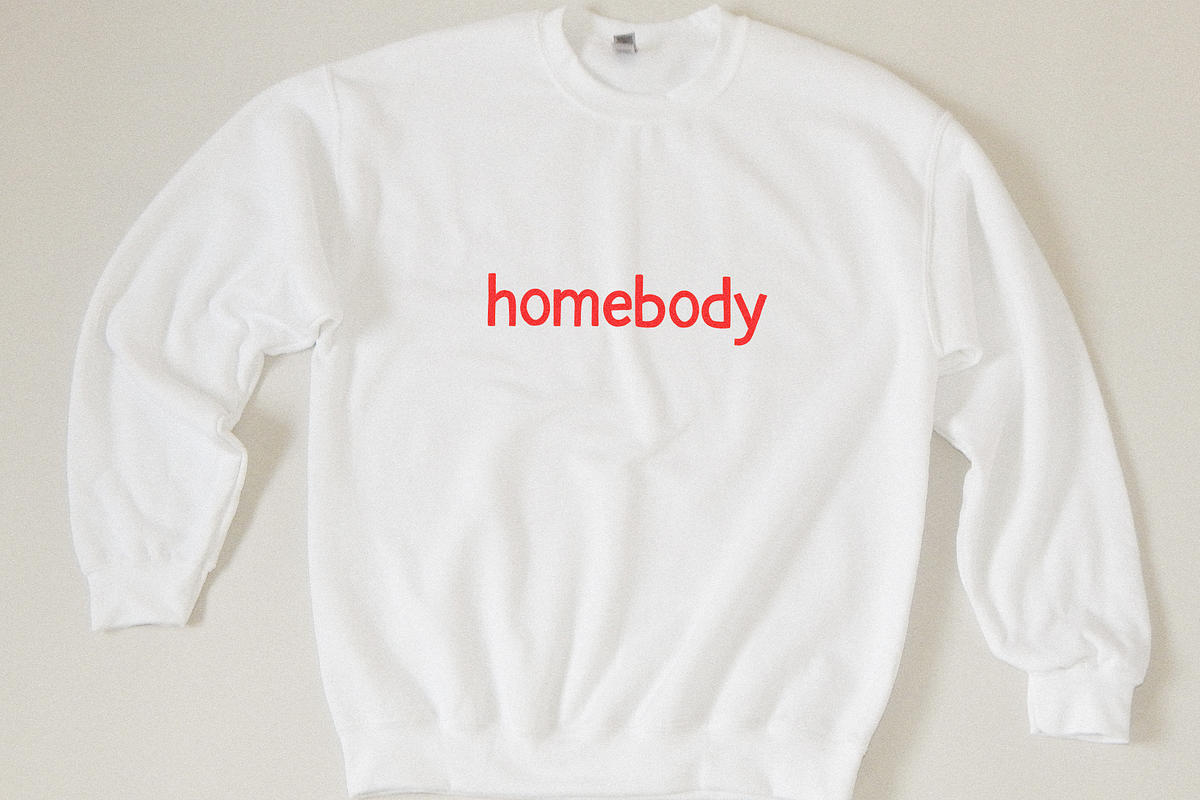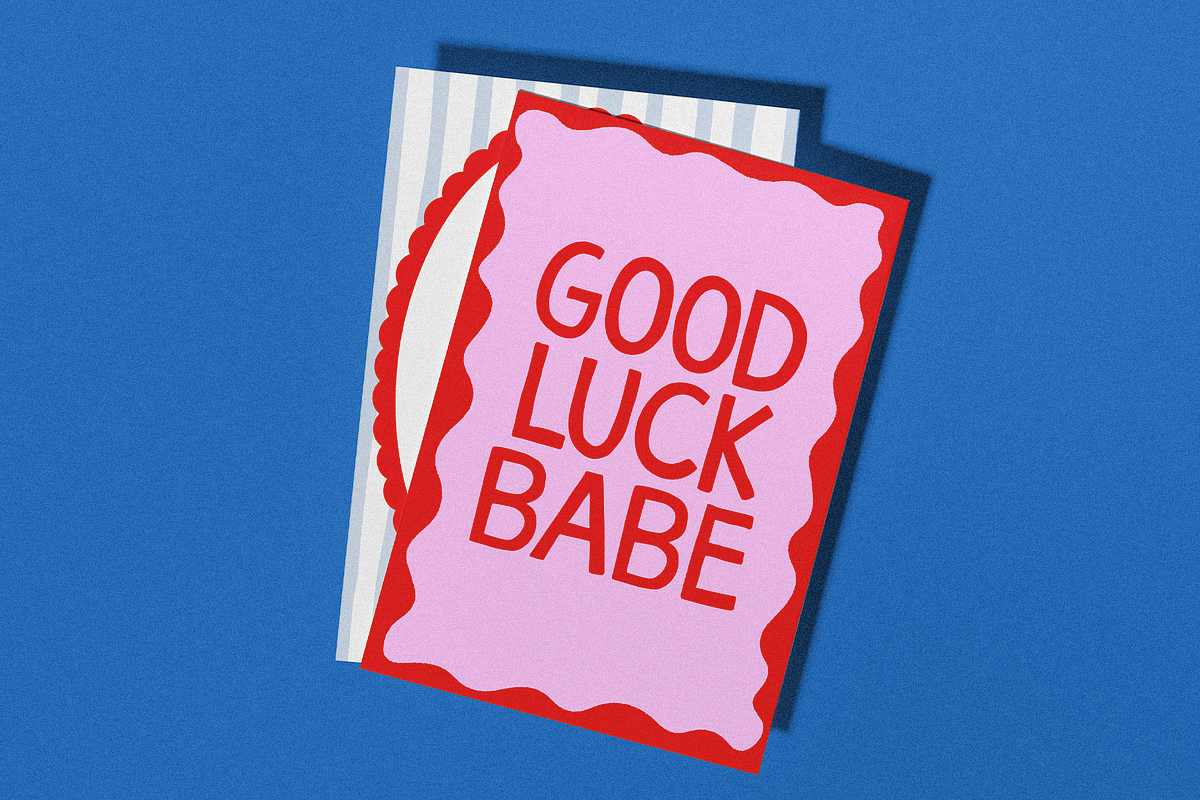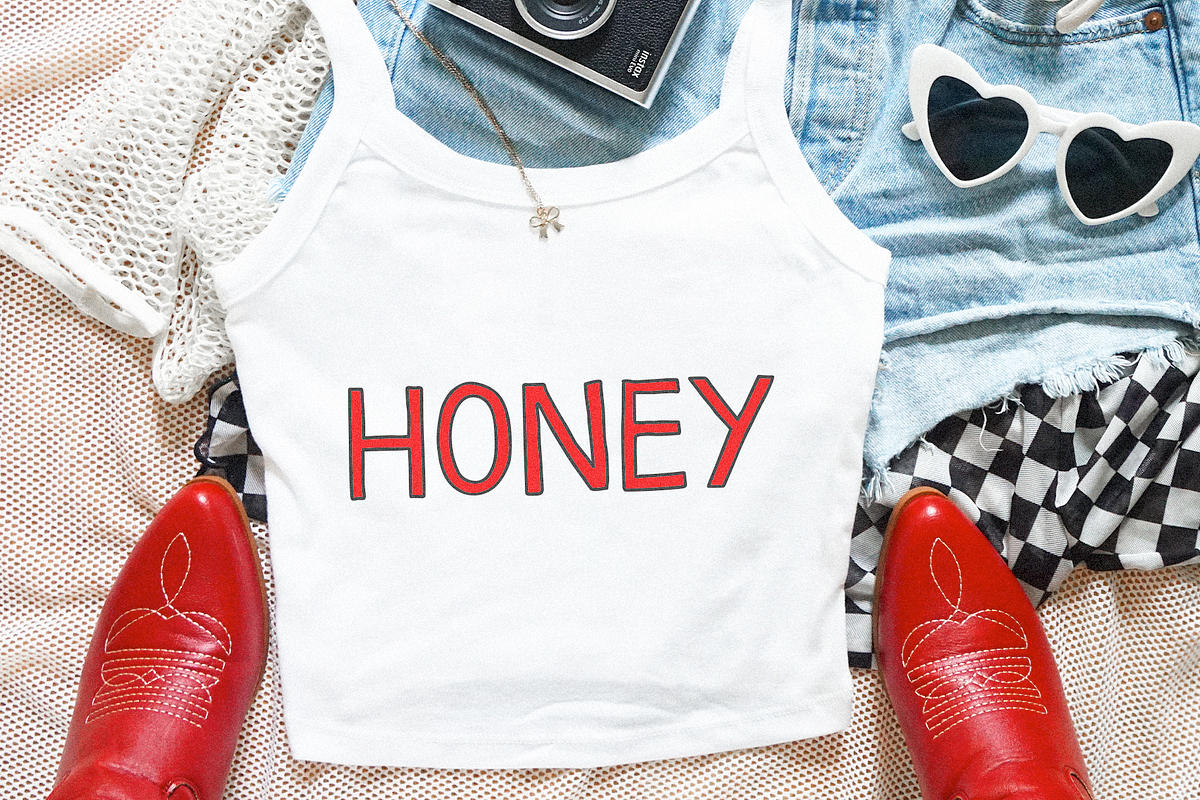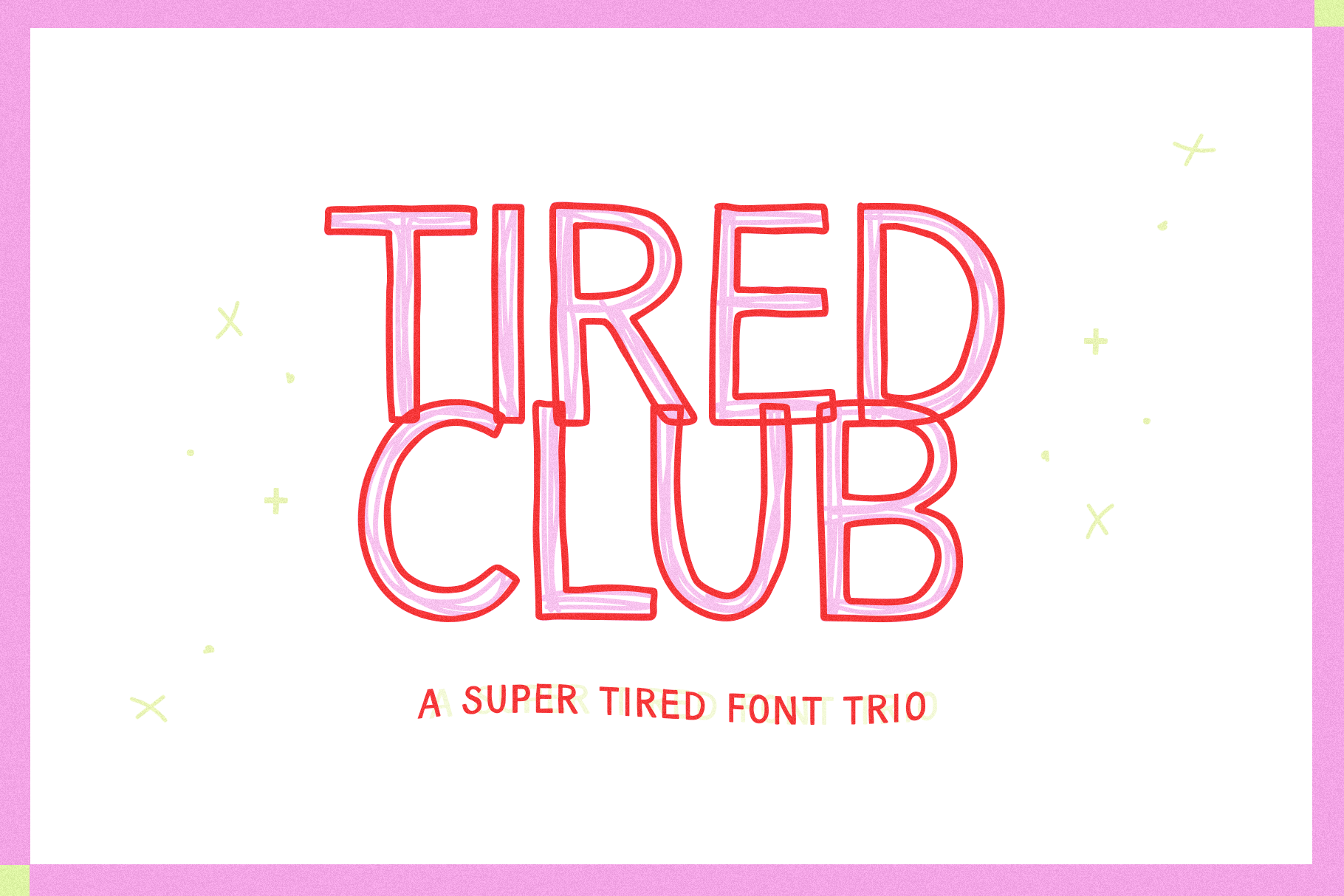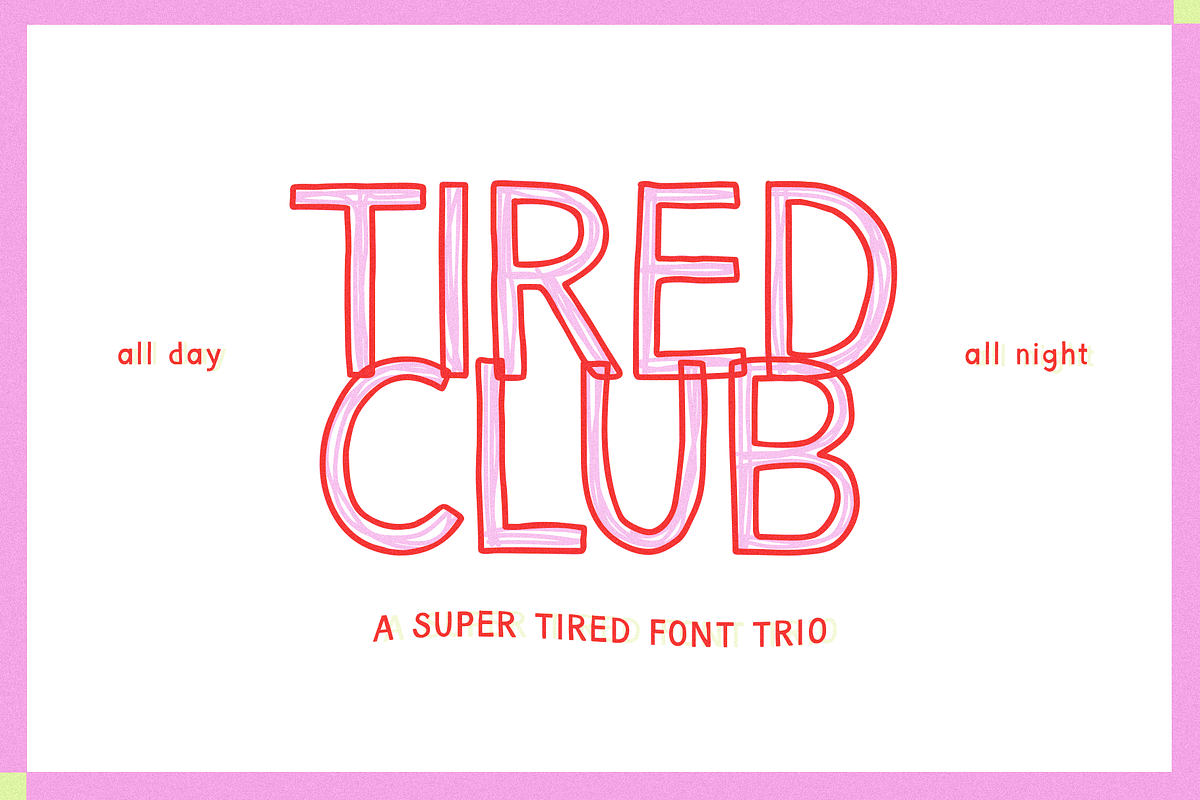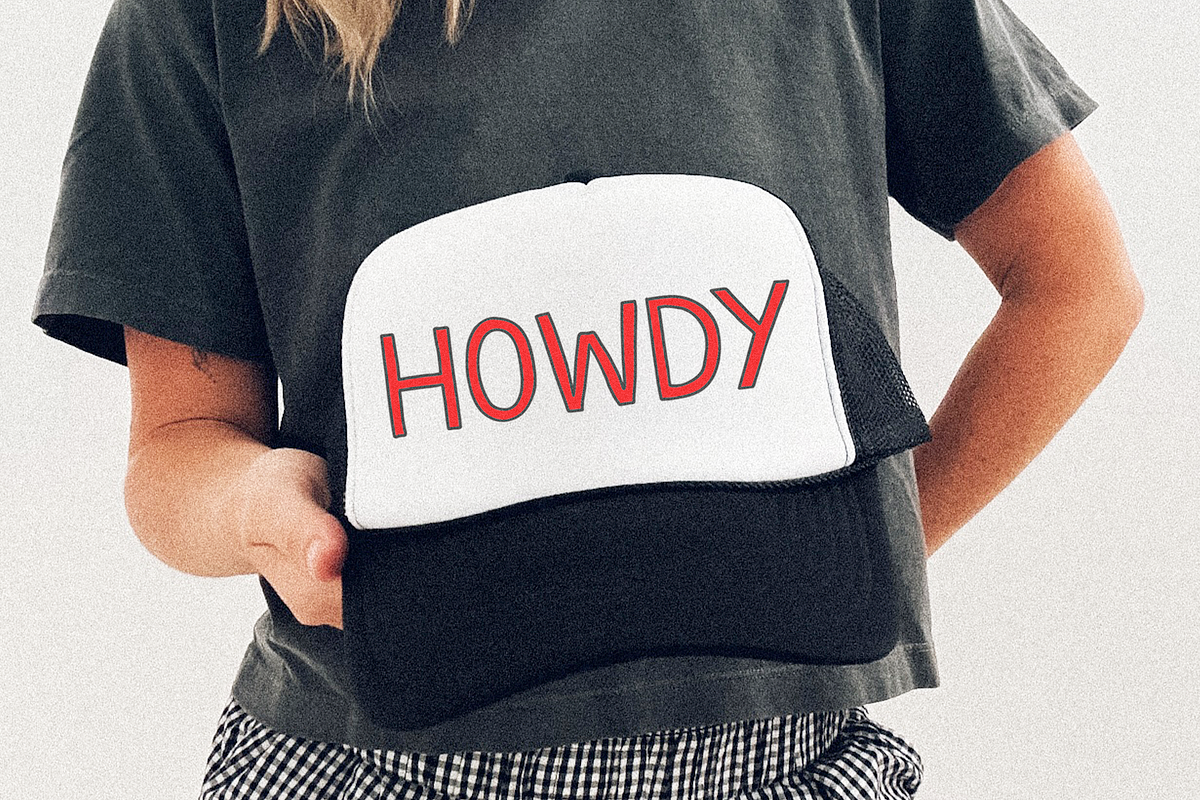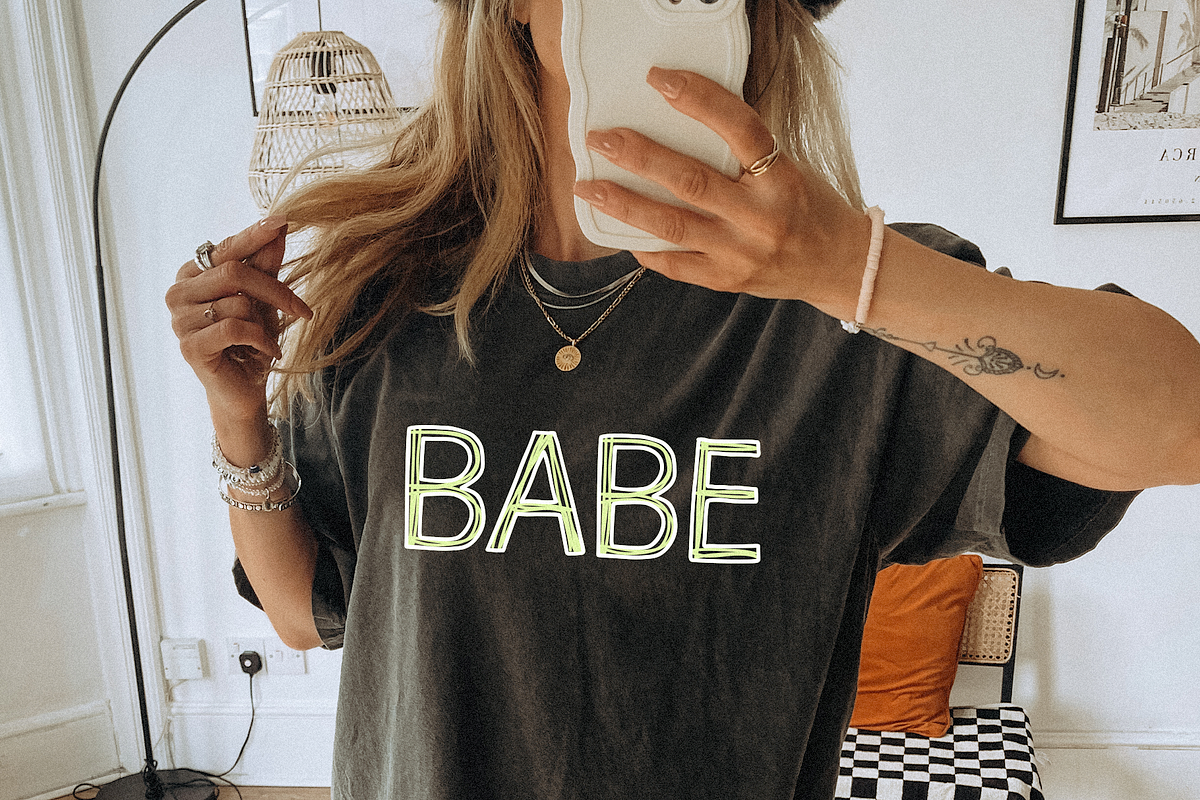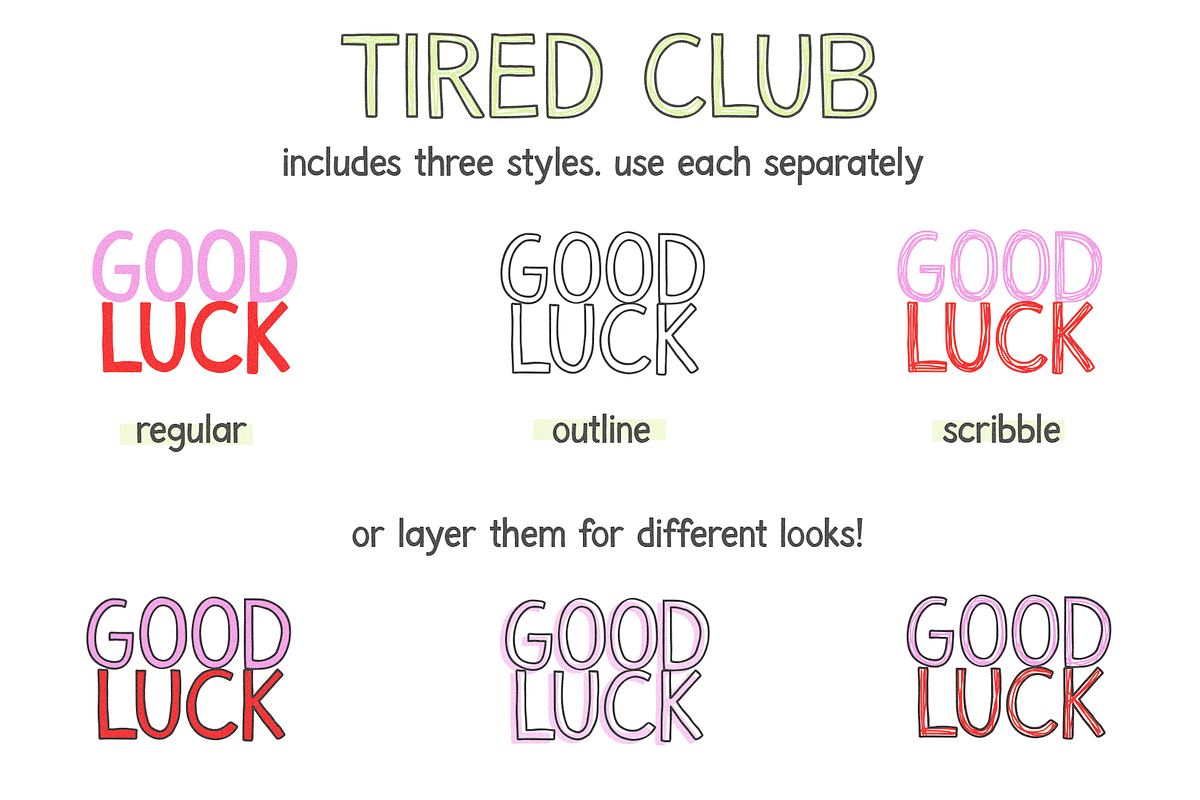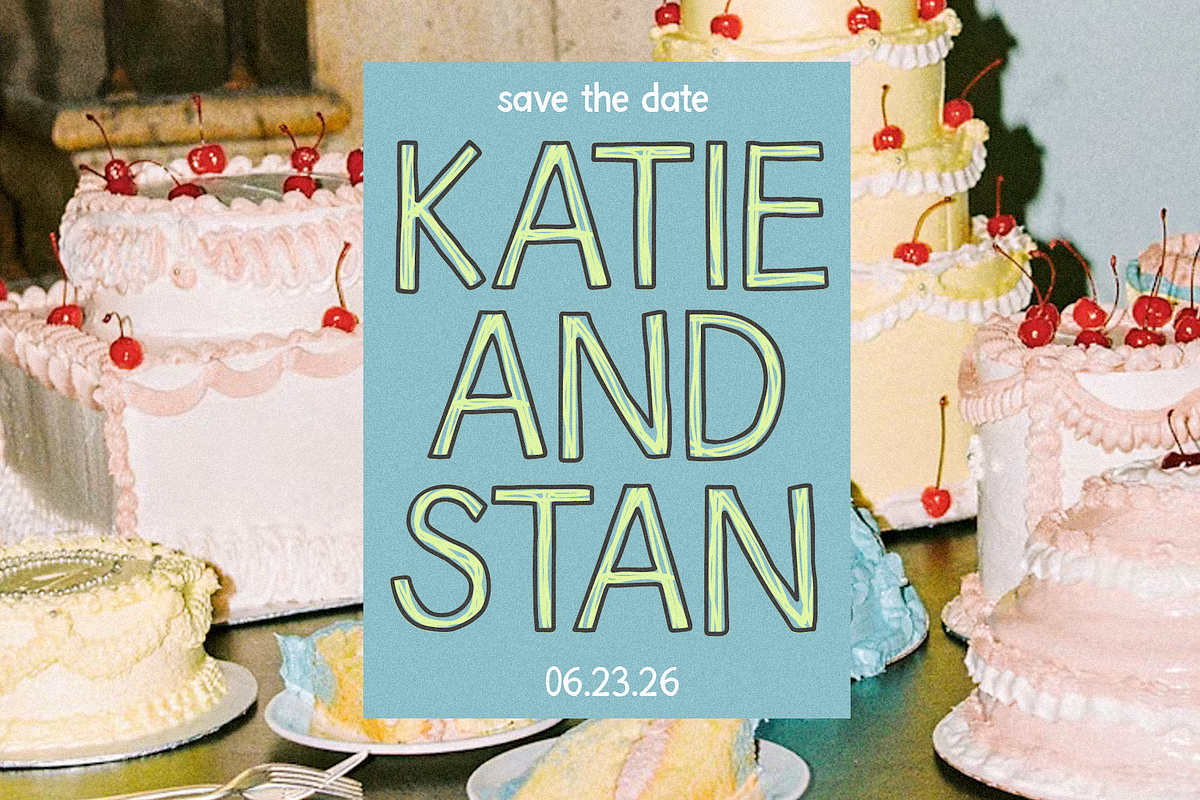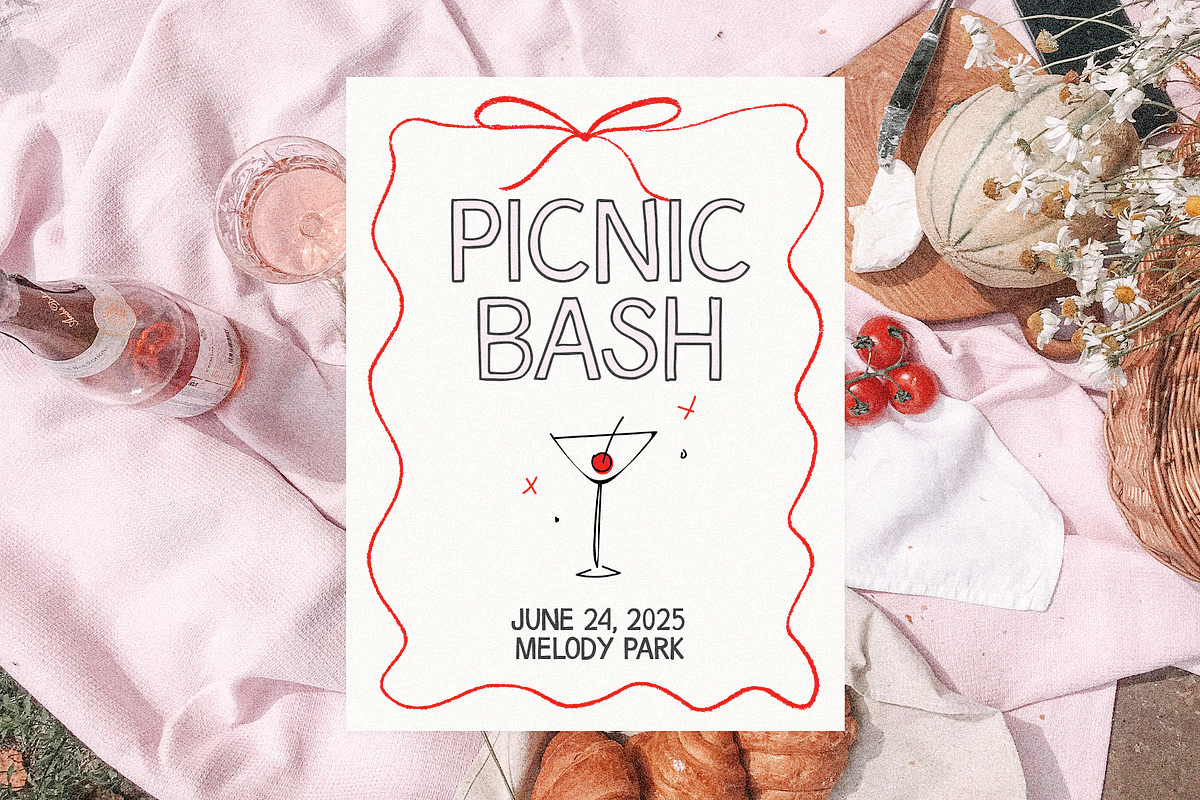
Tired Club | Outline Font Trio
Tired Club is a messy + trendy handwritten font trio!
There are three font styles included - use each separately or layer them for a unique style!
Tired Club is perfect for: logos, quotes, trendy designs, Canva, cricut projects, stickers, clothing, teachers, goodnotes, greeting cards, wedding signs, posters, social media and more!